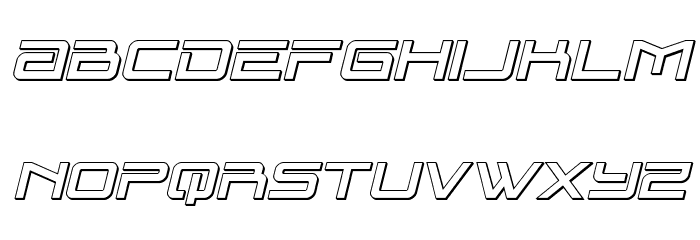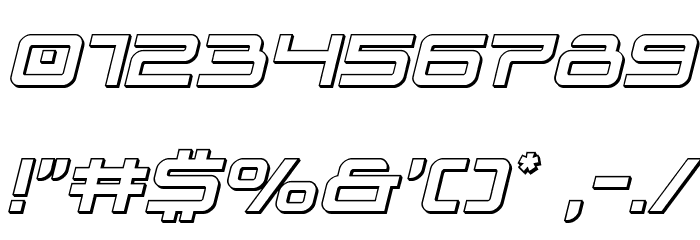
Blade Singer 3D Italic Font
This font features a futuristic and dynamic design with a 3D effect that gives it a sense of depth and movement. The characters are outlined, creating a hollow appearance that enhances the three-dimensional look. The italic style adds a forward-leaning motion, suggesting speed and agility. Each letter is crafted with sharp angles and clean lines, contributing to a modern and sleek aesthetic. The font maintains consistent spacing and proportions, ensuring readability while preserving its unique style. The numerals and special characters follow the same design principles, making them cohesive with the alphabet. This font is ideal for projects that require a bold and contemporary look.
A futuristic 3D italic font with sharp angles and a sleek, modern design.
- Proposed Projects: Ideal for sci-fi themed posters, video game titles, technology branding, and innovative product packaging.